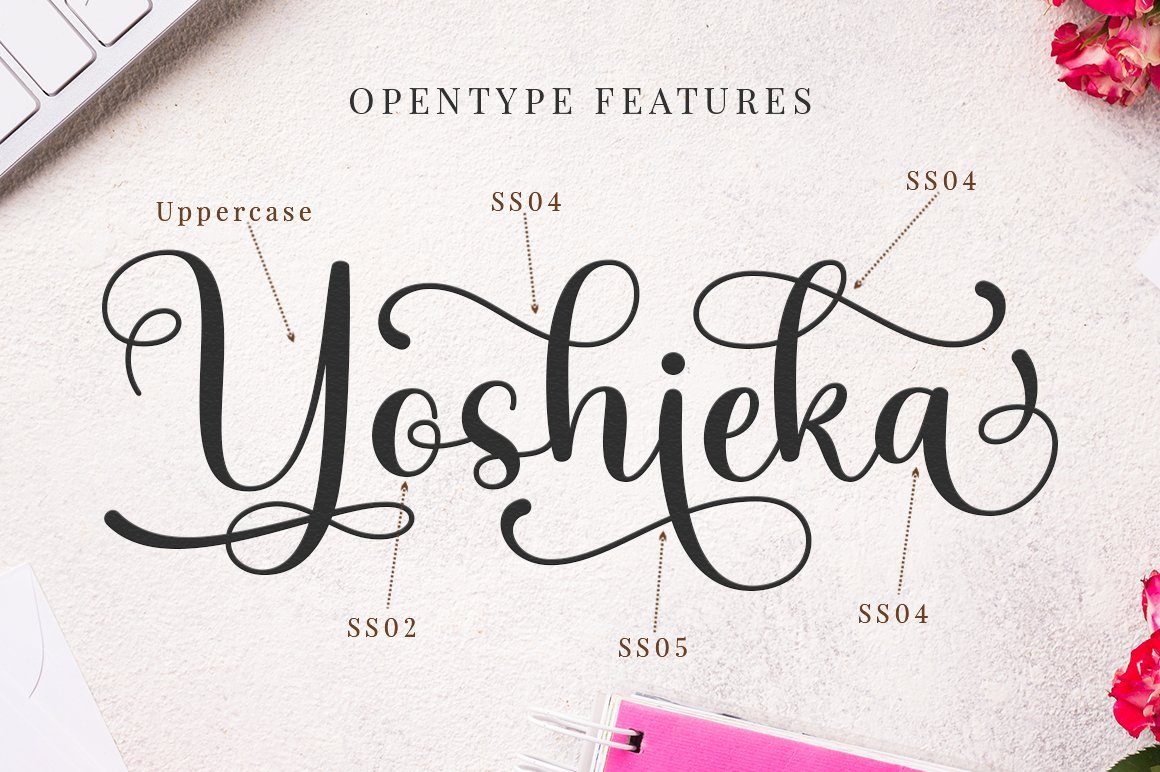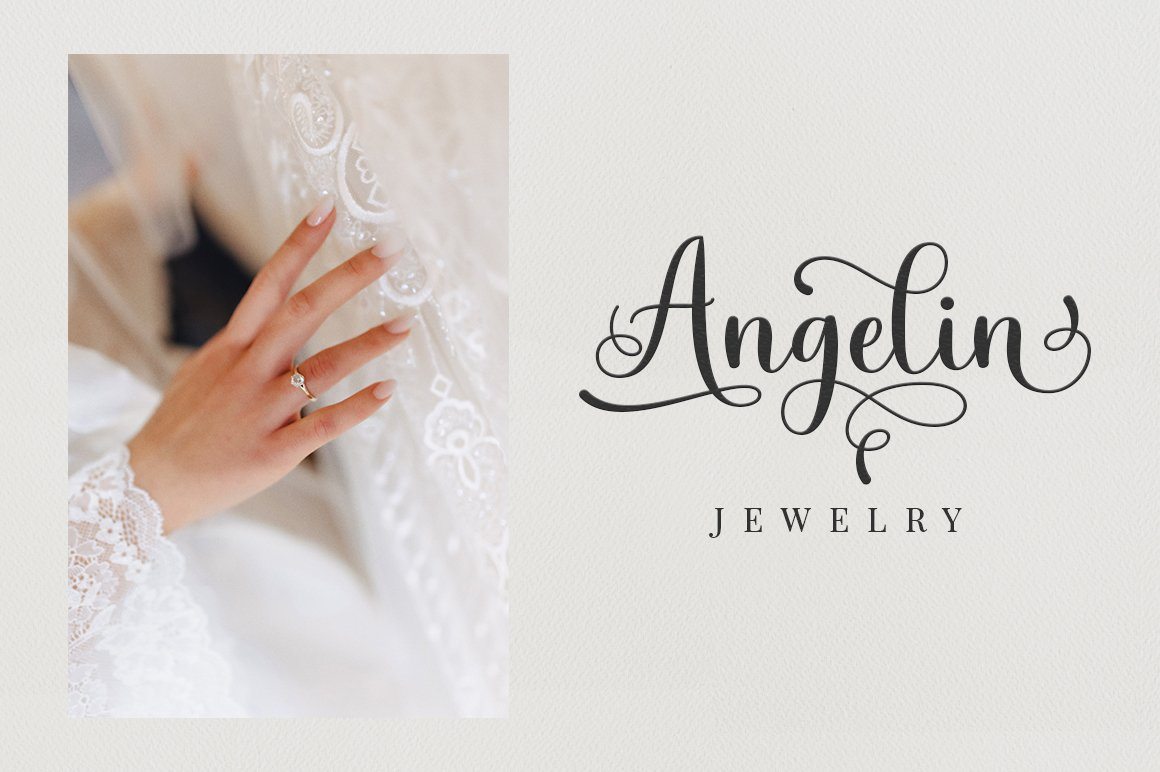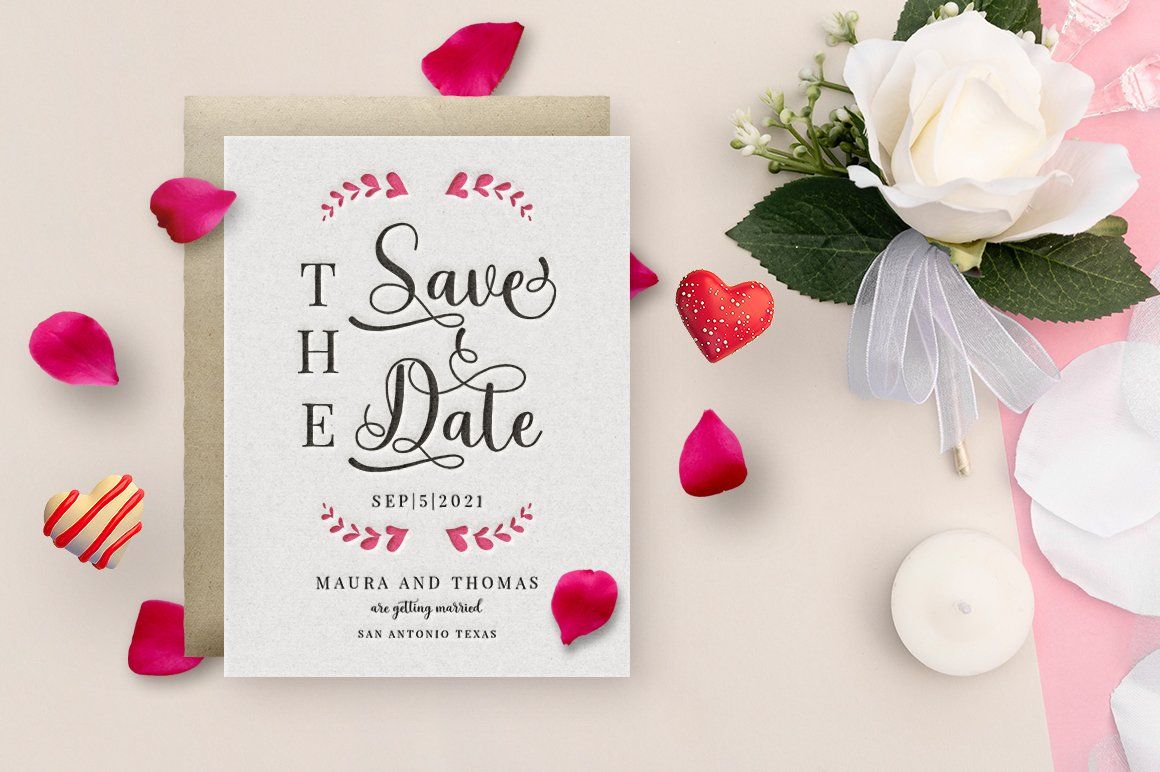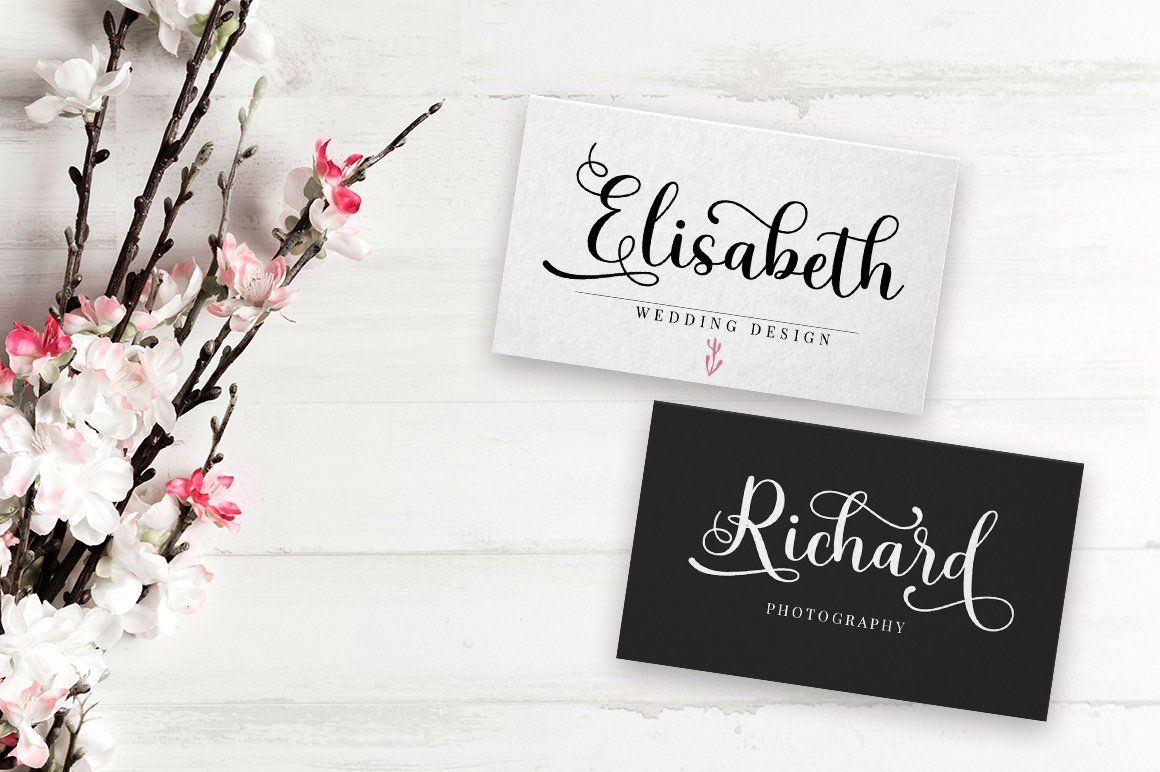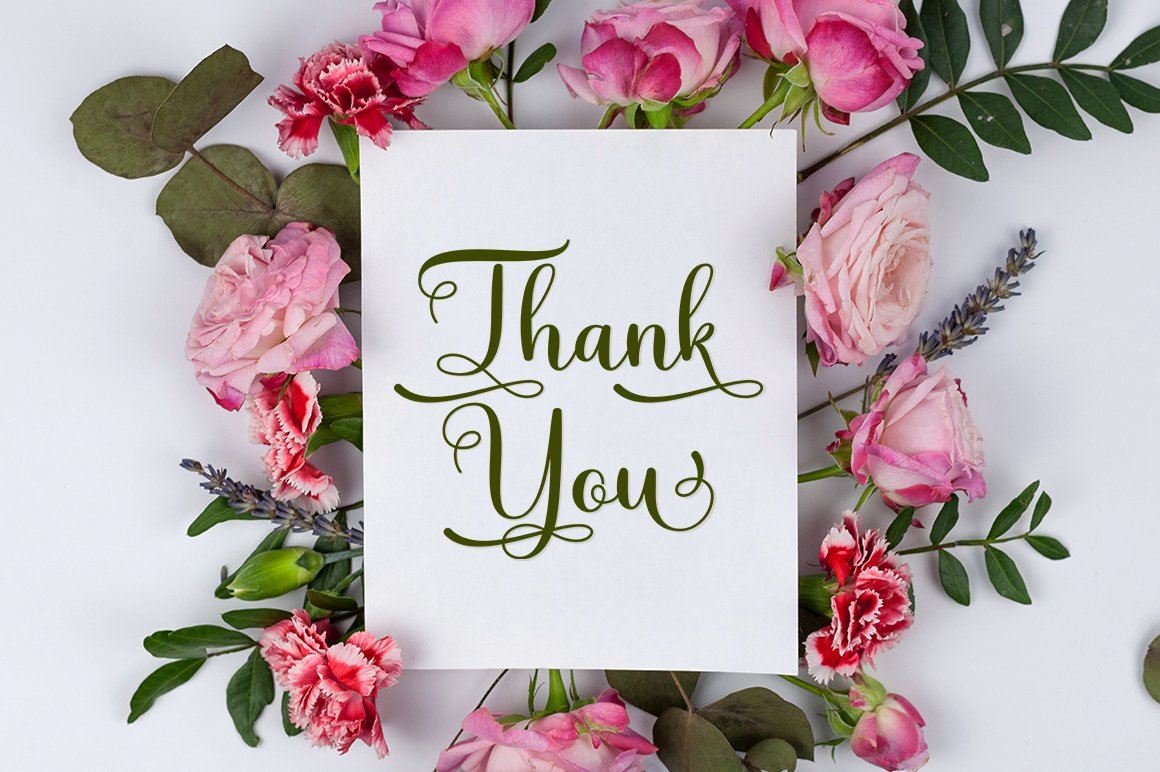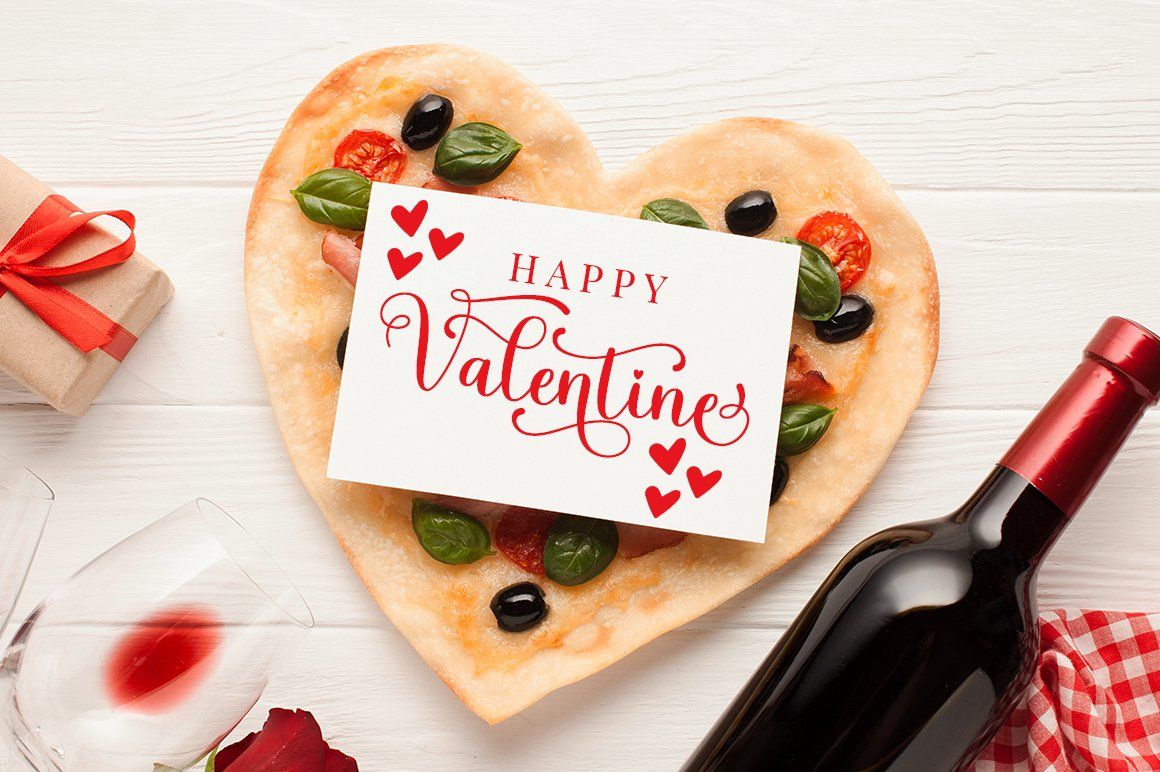
Yoshieka
Yoshieka Poster 1
About Yoshieka
-INTRODUCING- Yoshieka Script is a modern calligraphy font. Here you will get a beautiful script font. This font is available some modern swirl that can make your work look elegant, sweet and perfect. Can be used for various purposes.such as headings, signature, logos, wedding invitation, t-shirt, letterhead, signage, lable, news, posters, badges etc. Yoshieka Script features OpenType stylistic alternates, ligatures and International support for most Western Languages is included. To enable the OpenType Stylistic alternates, you need a program that supports OpenType features such as Adobe Illustrator CS, Adobe Indesign & CorelDraw X6-X7, Microsoft Word 2010 or later versions. Yoshieka Script is coded with PUA Unicode, which allows full access to all the extra characters without having special designing software. Mac users can use Font Book , and Windows users can use Character Map to view and copy any of the extra characters to paste into your favourite text editor/app. Thanks so much for looking and Enjoy it!